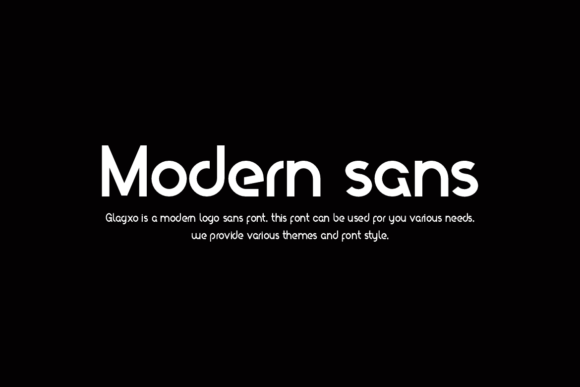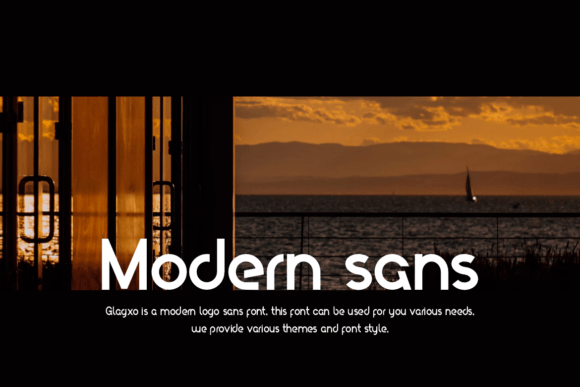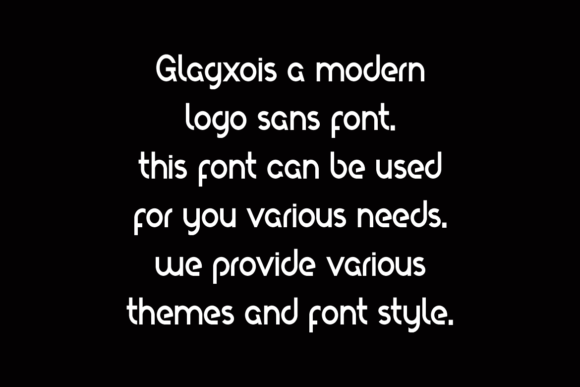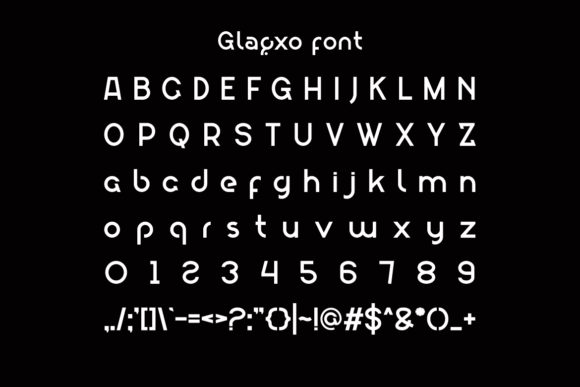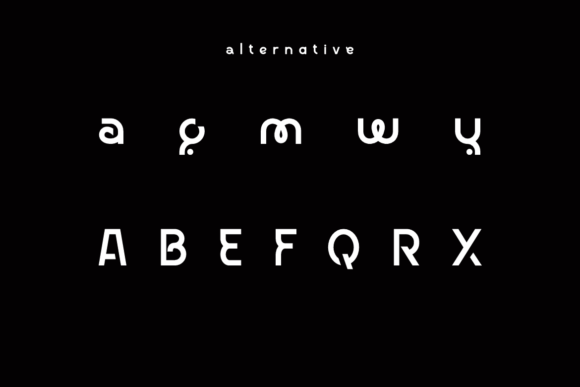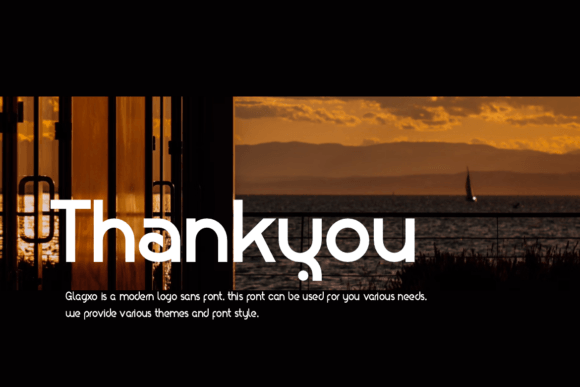
Introducing Glagxo Font: The Ultimate Choice for Modern Designs
In the world of typography, fonts play a crucial role in conveying the message and aesthetic of a brand. For designers and crafters, selecting the right font can make all the difference in creating a visually appealing and professional-looking design. If you’re on the hunt for a clean, modern sans-serif logo font that exudes simplicity and sophistication, look no further than Glagxo Font.
What is Glagxo Font?
Glagxo is a clean, modern sans-serif logo font designed to provide a fresh and professional feel to any design. Its simple, smooth lines and balanced look make it easy to read, perfect for brands and logos that require a sleek and contemporary aesthetic. Whether you’re working on a logo, branding, or marketing materials, Glagxo Font is an excellent choice.
Key Features of Glagxo Font
- Clean and Modern Design: Glagxo Font boasts a clean and modern sans-serif design, making it perfect for brands and logos that require a fresh and professional look.
- Simple and Smooth Lines: The font features simple, smooth lines that provide a smooth reading experience, making it ideal for body text and headlines.
- Balanced Look: Glagxo Font has a balanced look that ensures perfect harmony between letters, making it easy to read and recognize.
- Easy to Read: The font is designed to be easy to read, even at small sizes, making it perfect for use on various platforms, including digital and print materials.
Benefits of Using Glagxo Font
So, why choose Glagxo Font for your design projects? Here are some benefits of using this versatile font:
- Versatility: Glagxo Font is perfect for a wide range of design projects, including logos, branding, marketing materials, and more.
- Professional Look: The font provides a professional and polished look that will elevate your designs and make them stand out.
- Easy to Pair: Glagxo Font is easy to pair with other fonts, making it a great addition to your font library.
- Legibility: The font’s clean design and balanced look ensure excellent legibility, even at small sizes.
Who Can Benefit from Glagxo Font?
Glagxo Font is perfect for a variety of designers and crafters, including:
- Graphic Designers: If you’re a graphic designer looking for a modern sans-serif font for your logo or branding projects, Glagxo Font is an excellent choice.
- Logotype Designers: The font’s clean design and simple lines make it perfect for logotype designs that require a professional and sleek look.
- Crafters: If you’re a crafter looking for a font to use on your products, such as t-shirts, mugs, or stationery, Glagxo Font is a great option.
In conclusion, Glagxo Font is a versatile and modern sans-serif logo font that’s perfect for designers and crafters looking for a clean and professional font. Its simple, smooth lines and balanced look make it easy to read and perfect for a wide range of design projects. Whether you’re working on a logo, branding, or marketing materials, Glagxo Font is an excellent choice. So why wait? Download Glagxo Font today and take your designs to the next level!